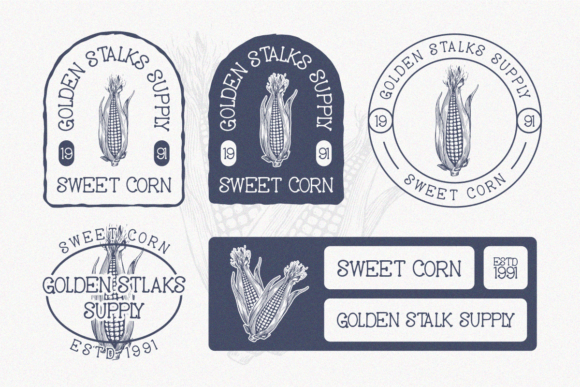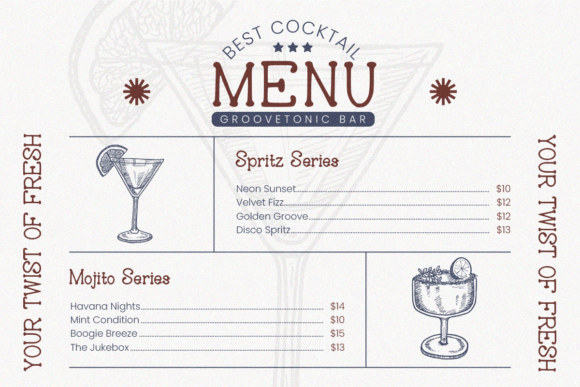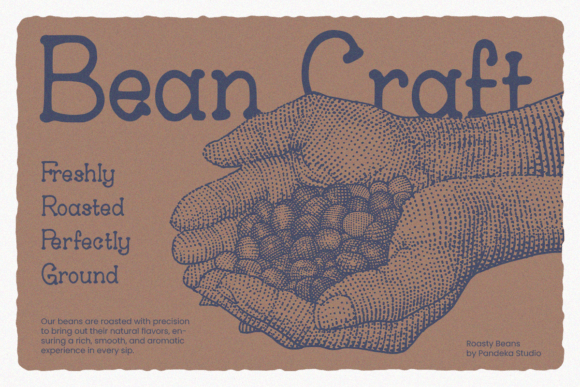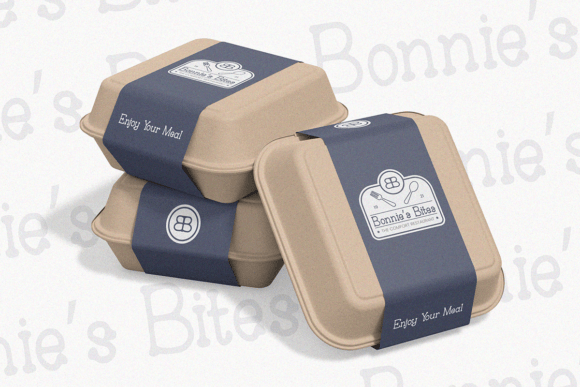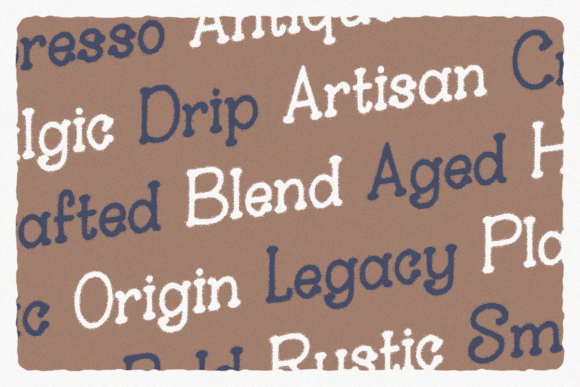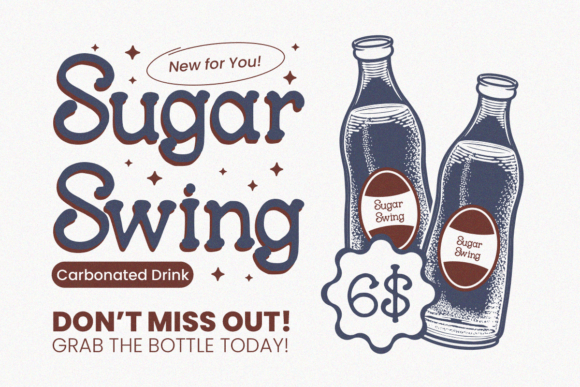
Introduction to Roasty Beans Font
Have you ever stumbled upon a quaint coffee shop with a sign that instantly transports you to a bygone era? The moment I walked into that charming café, I was captivated by the vintage vibes and the beautiful typography on their menu board. It was then that I discovered the Roasty Beans Font, a classic serif font that exudes a warm, hand-drawn charm reminiscent of vintage coffee shop designs.
As designers, we’re always on the lookout for high-quality design resources that can elevate our creative projects. The Roasty Beans Font is a valuable addition to any design arsenal, offering a transparent background and a range of styles that can be easily customized to suit various design needs. Whether you’re working on a menu, packaging, or signage, this font is sure to add a touch of rustic elegance to your design.
Key Features of Roasty Beans Font
- Unique and playful design, perfect for creative projects that require a fun and casual tone
- High-quality font with transparent background, allowing for seamless integration into any design
- Designed with a high-resolution 300 DPI, ensuring crisp and clear text even at larger sizes
- Includes a comprehensive character set, including uppercase and lowercase letters, numbers, and special characters
- Perfect for use in logos, branding, and other creative projects where a distinctive and eye-catching font is desired
Honest Review: Roasty Beans Font
I recently stumbled upon the Roasty Beans Font and I must say, it’s been a great addition to my design resource library. As a designer, I’m always on the lookout for high quality fonts that can elevate my creative projects.
What works well with the Roasty Beans Font is its versatility. The font comes in a range of weights, from light to bold, making it perfect for designing everything from logos to headings. The font also has a modern and sleek feel to it, which I appreciate.
- ✨ High quality and crisp typography
- ✨ Transparent background, making it easy to use on any design
However, I do have to mention a few limitations. The font is not suitable for use in certain creative projects, such as those that require a lot of text manipulation. Additionally, the font is not available in as many languages as I would like.
- ⚠️ Limited language support
- ⚠️ Not suitable for heavy text manipulation
Overall, I’m quite impressed with the Roasty Beans Font. It’s a great addition to any designer’s library and I’m excited to see how it will be used in future creative projects.
The Roasty Beans Font is a versatile design resource that can be used in a variety of creative projects, including food blogs, coffee shops, and restaurant menus. It’s also a great choice for social media graphics and advertising materials.
Yes, Roasty Beans Font supports transparent backgrounds, allowing you to use it on images or designs with a clear background. This feature is especially useful for graphic designers and digital artists who need to create complex compositions.
Q: Is Roasty Beans Font a high-quality font?
Yes, Roasty Beans Font is a high-quality design resource that has been carefully crafted to ensure optimal performance and readability. Its clear and legible characters make it perfect for use in a wide range of creative projects, from logos and branding to typography and digital art.